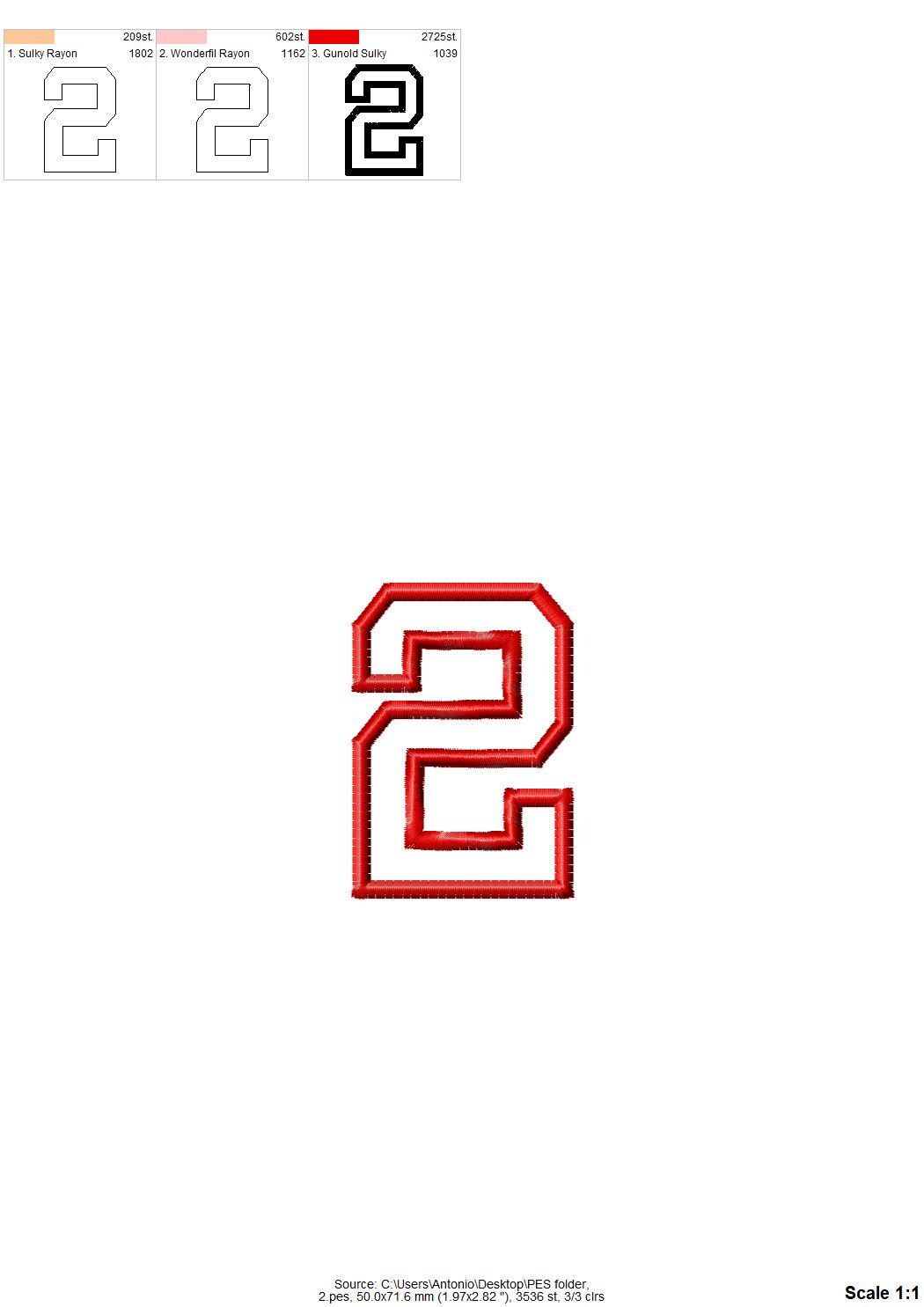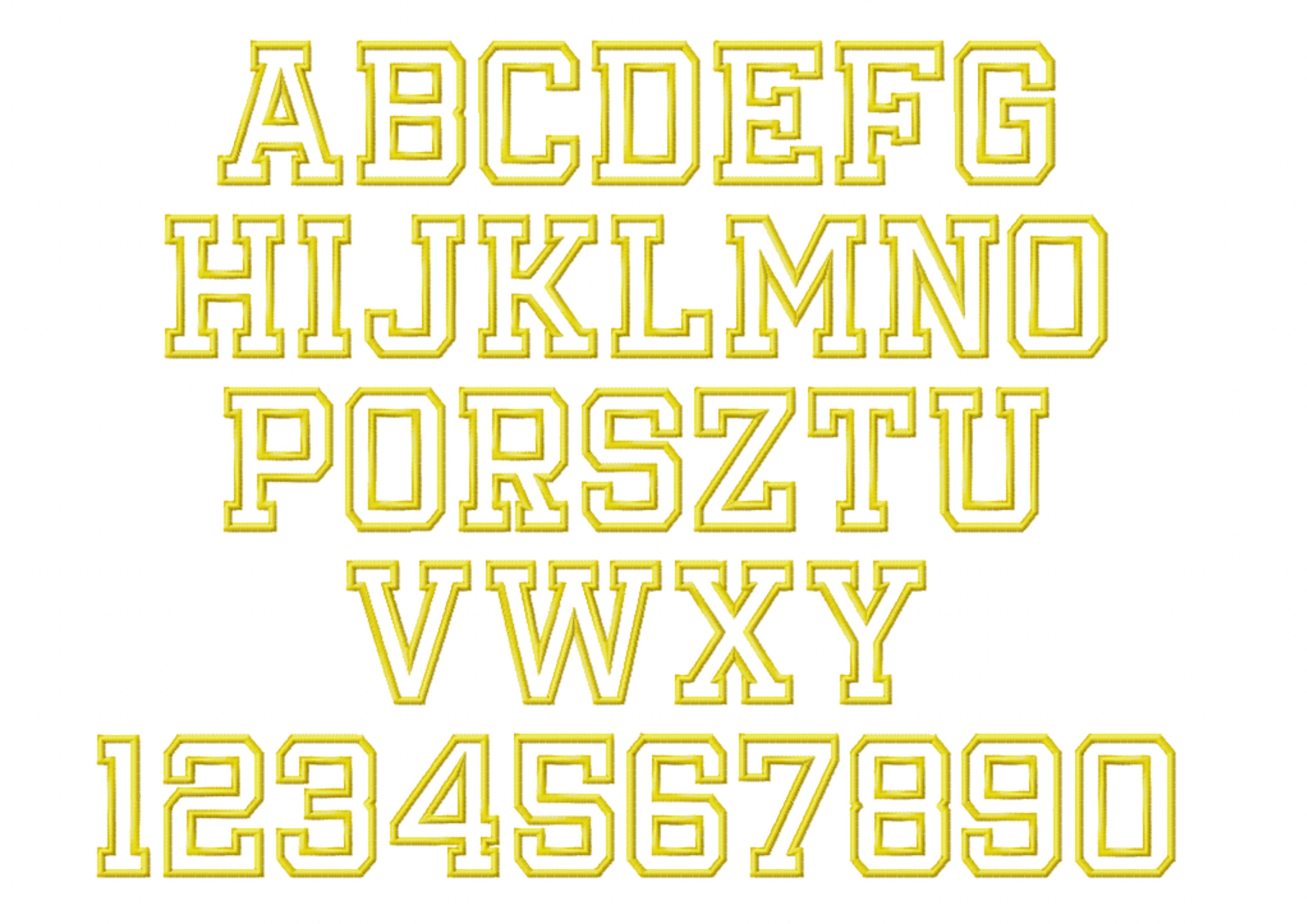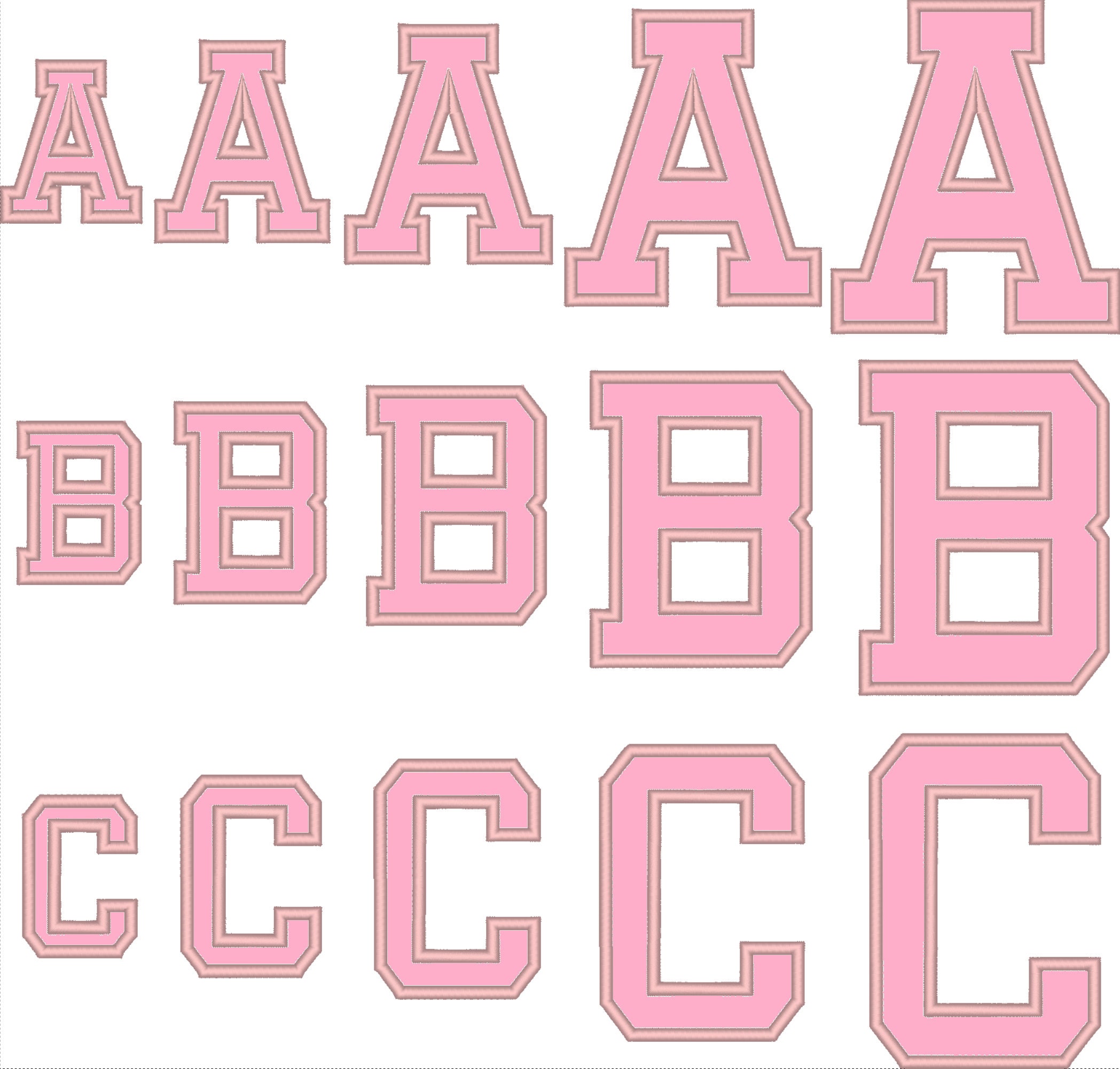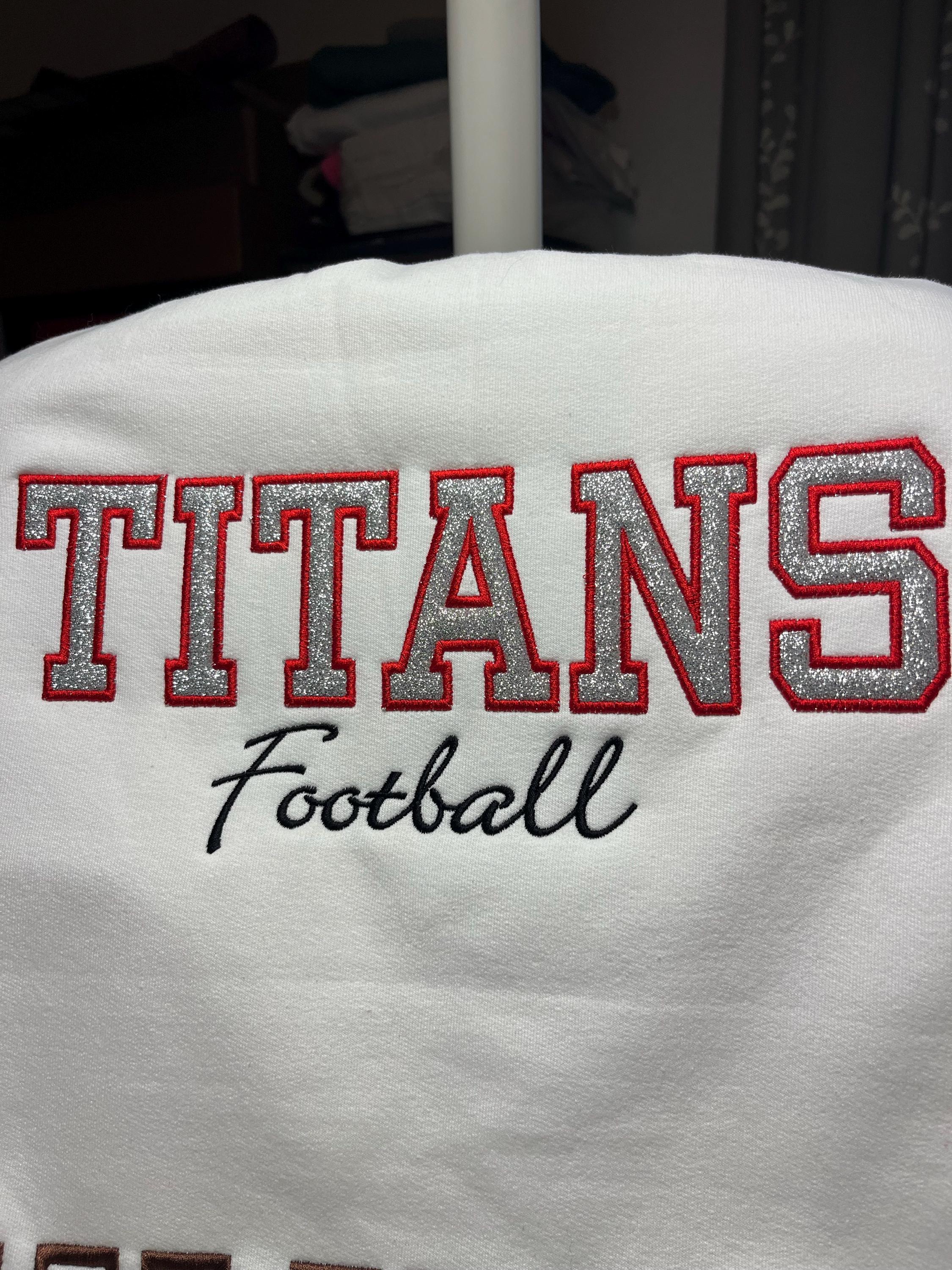
Varsity FONT Athletic Sport High School Team Players machine embroidery designs sport alphabet letters BX font applique
The font has nice wide satin stitch outlines.
This is a font of capital letters and numbers